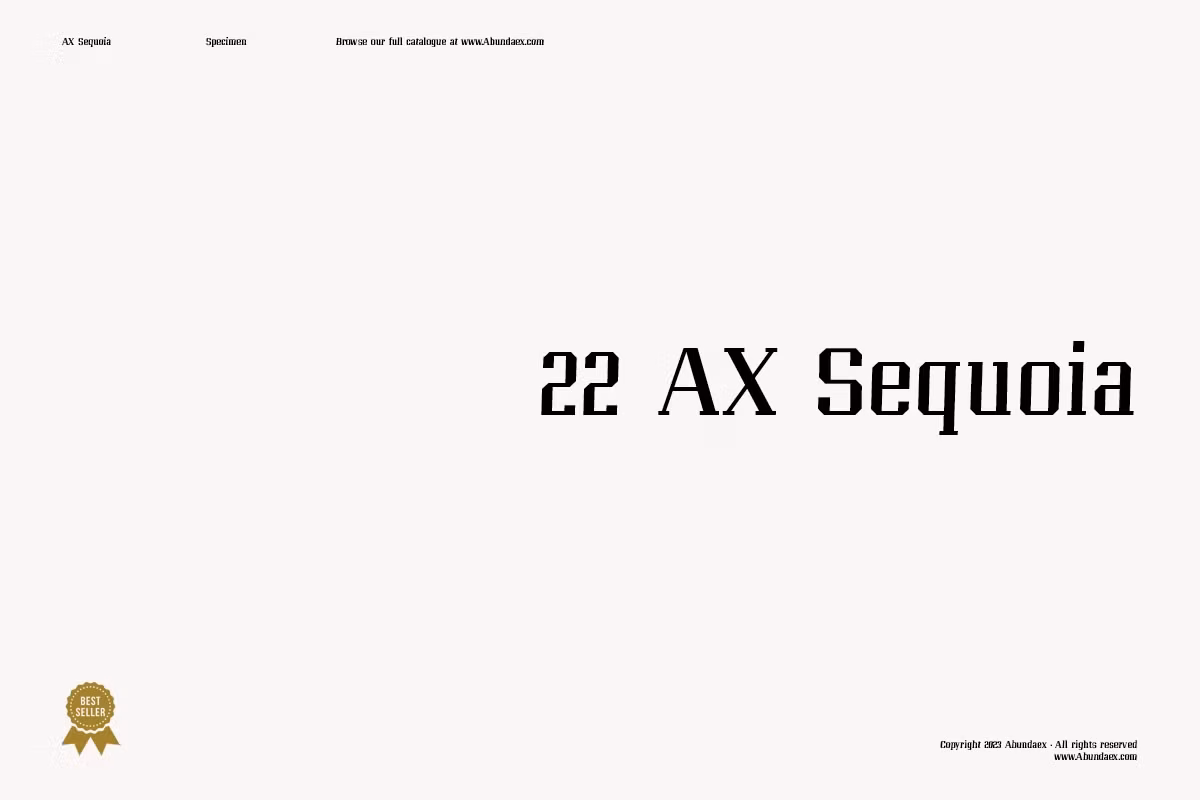
Please note, to use this font for commercial purposes, you must purchase the full version. Sequoia Stylish Font is an elegant and modern typeface that brings sophistication and flair to any design. With its clean lines and contemporary style, it is perfect for logos, invitations, headlines, and branding materials. Whether you're working on a luxurious brand identity or creating elegant event designs, Sequoia adds a refined touch to your projects. Test it out and enjoy free download access for personal use. Discover the timeless beauty of Sequoia Stylish Font Free Download before purchasing the commercial license. Enhance your designs with the graceful style of Sequoia.